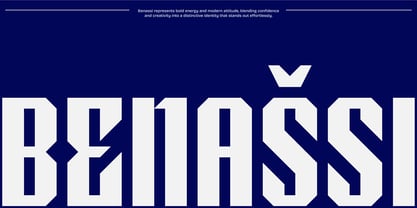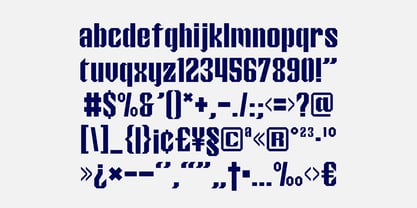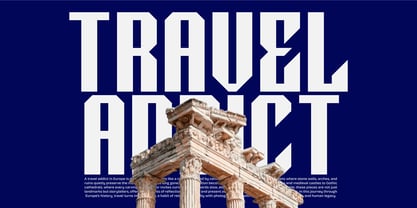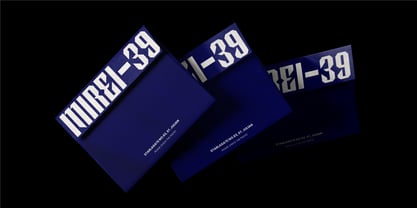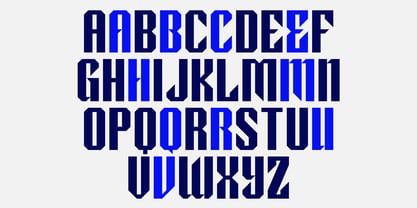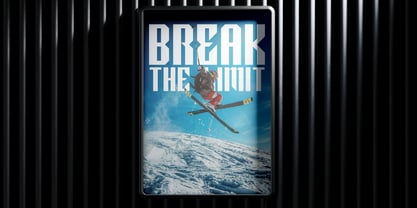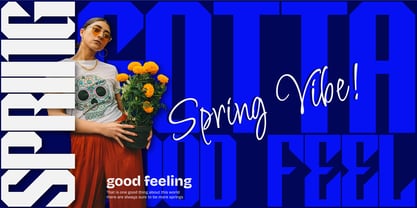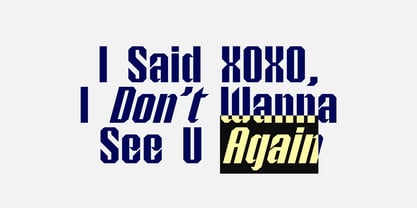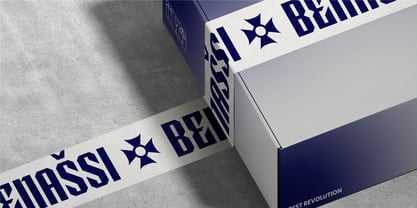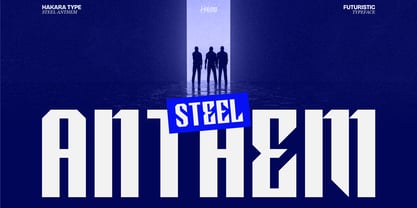
Steel Anthem
by Hakara Type
The Steel Anthem Font Family was designed by Kanisius Adi Klau and published by Hakara Type. Steel Anthem contains 2 styles and family package options. More about this family
Steel Anthem Typeface is a cutting-edge display font characterized by bold geometry, sharp edges, and a robust industrial personality. Designed to capture attention, this typeface merges modern structure with a high-impact visual rhythm, making it perfect for projects that require a powerful and distinctive identity. Its tall, condensed letterforms create a striking presence, excelling in headlines, branding, posters, and large-scale typography. Inspired by cyber-industrial aesthetics and contemporary sports typography, Steel Anthem conveys a confident visual tone that feels energetic, premium, and forward-looking. The angular construction and unique character details provide the font with a memorable appearance while ensuring readability. Whether utilized in digital or print design, Steel Anthem makes a dramatic visual statement that is sharp, modern, and unmistakably futuristic. This typeface is ideal for logos, gaming graphics, apparel branding, packaging, music covers, editorial layouts, and urban-inspired visual identities. Steel Anthem shines in bold compositions where typography takes center stage, infusing a sleek mechanical atmosphere that combines strength, speed, and contemporary style into one cohesive font system. Font Features: - Uppercase Characters - Lowercase Characters - Numbers & Punctuation - Multilingual Support - Futuristic Display Style - Strong Geometric Structure - Sharp Angular Details - High Visual Impact
Designers: Kanisius Adi Klau
Foundry: Hakara Type
Hakara Type, founded in 2023 and located in Kupang, East Nusa Tenggara, Indonesia, specializes in elegant and modern display fonts. Our mission is to introduce innovative typefaces that enhance both personal and business projects. The name "Hakara," meaning "love" in the Tetun language, reflects our commitment to delivering exceptional results. We aim to ensure that customers not only appreciate the outcomes of their projects but also enjoy the creative process of using our functional typefaces. With a focus on quality and design, Hakara Type stands out as a trusted source for unique and stylish fonts that cater to diverse industries and design needs.